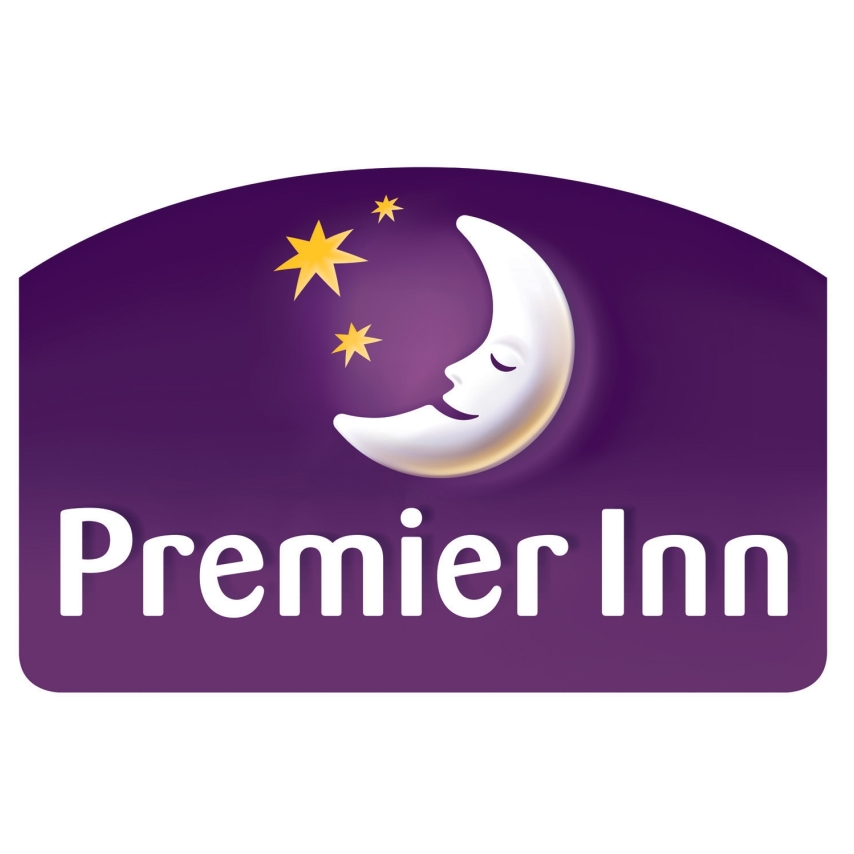
Premier Inn Font
Fonts in UsePremier Inn is a British hotel chain that offers affordable accommodation across the UK and some international locations. It is known for its comfortable rooms, friendly service, and convenient locations.
The hotel chain's logo font, Barmeno, was created in 1983 by Hans Reichel for H. Berthold and is known for its rounded and amiable appearance. In 2015, Premier Inn adopted a new wordmark designed by lettering artist and type designer Rob Clarke, replacing the previous logo.